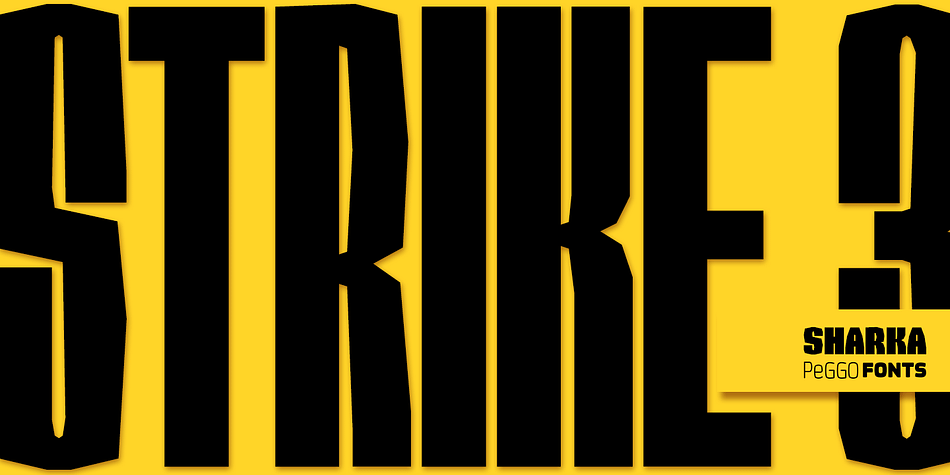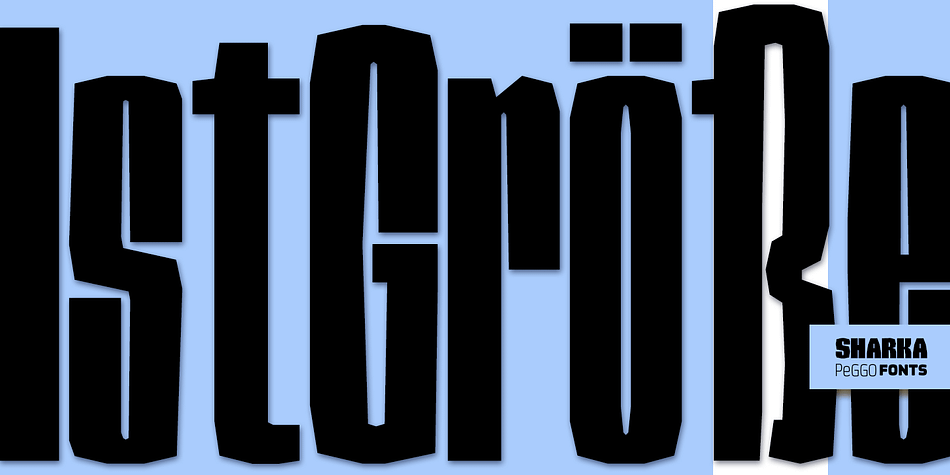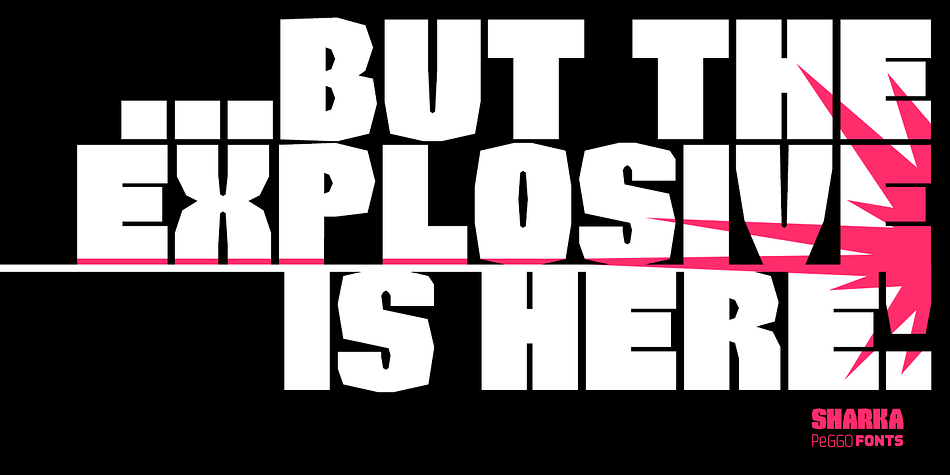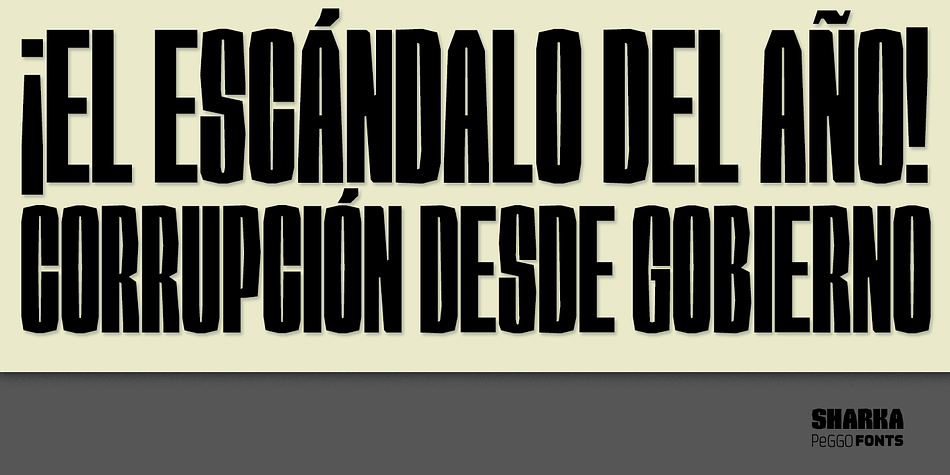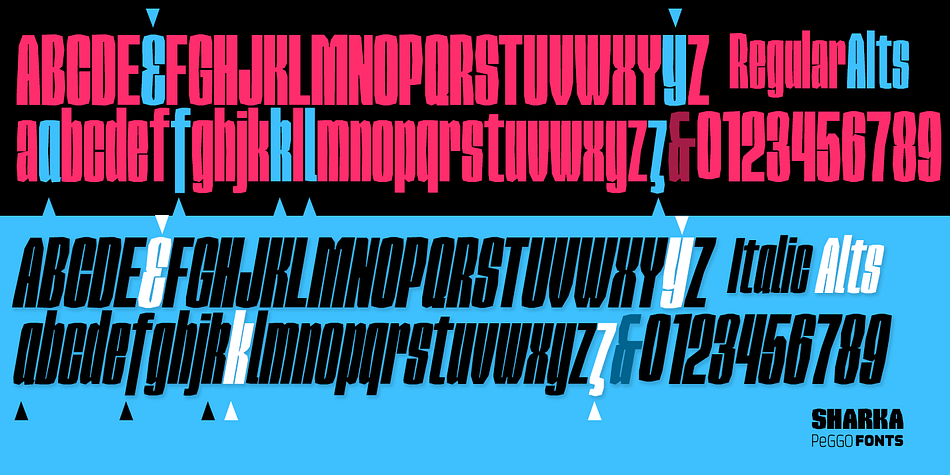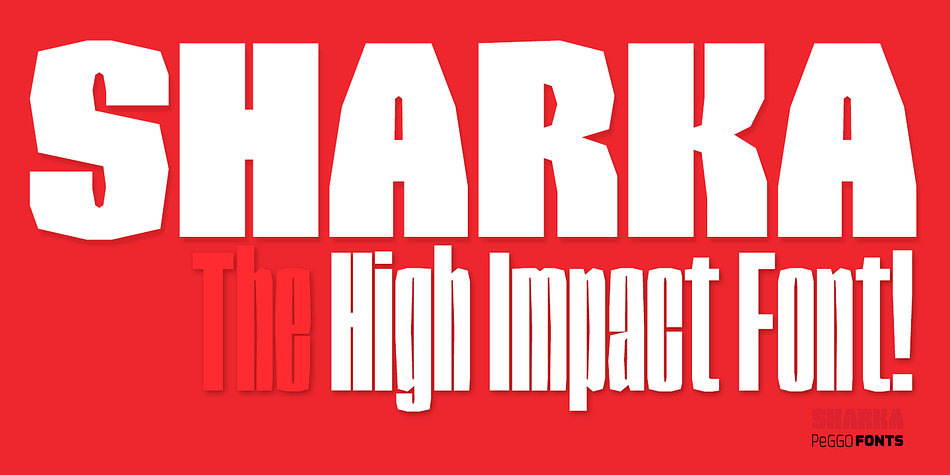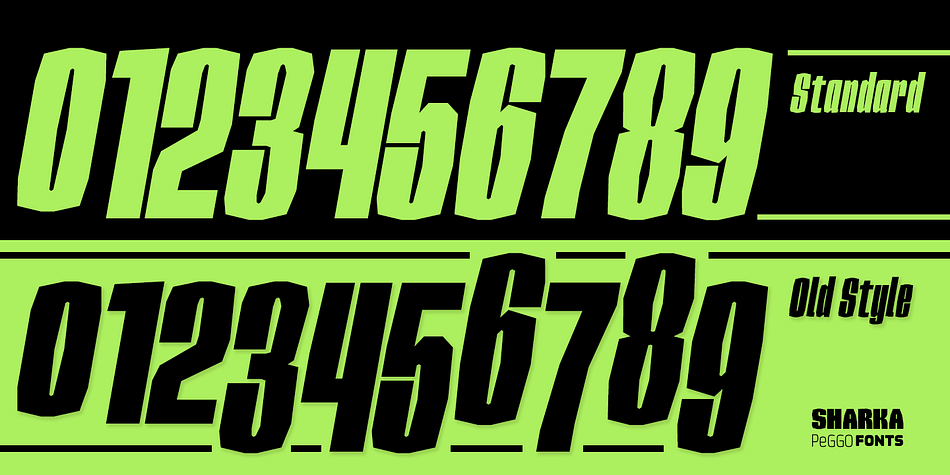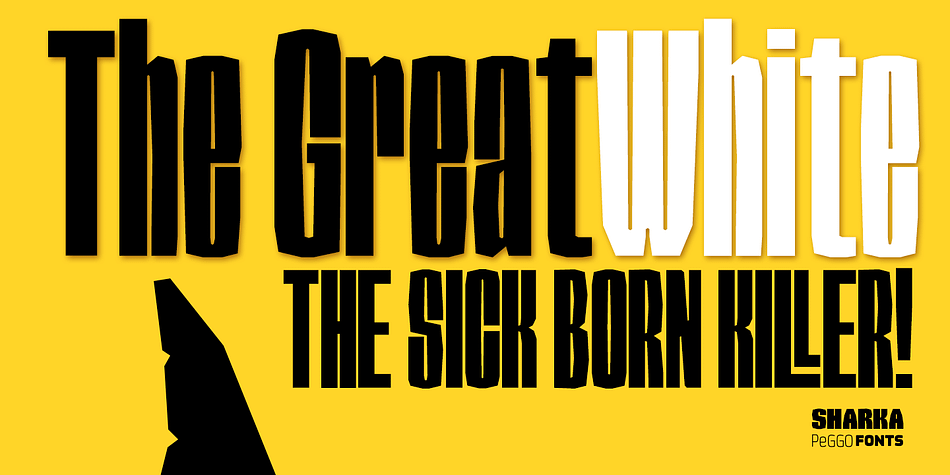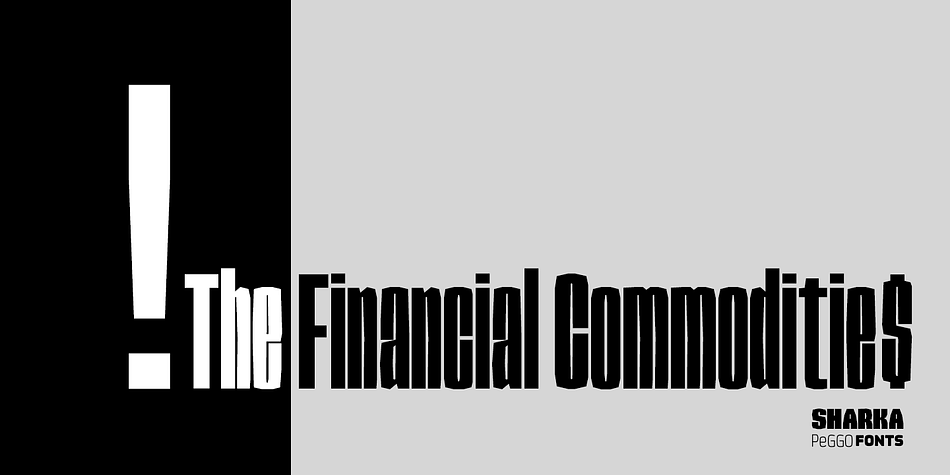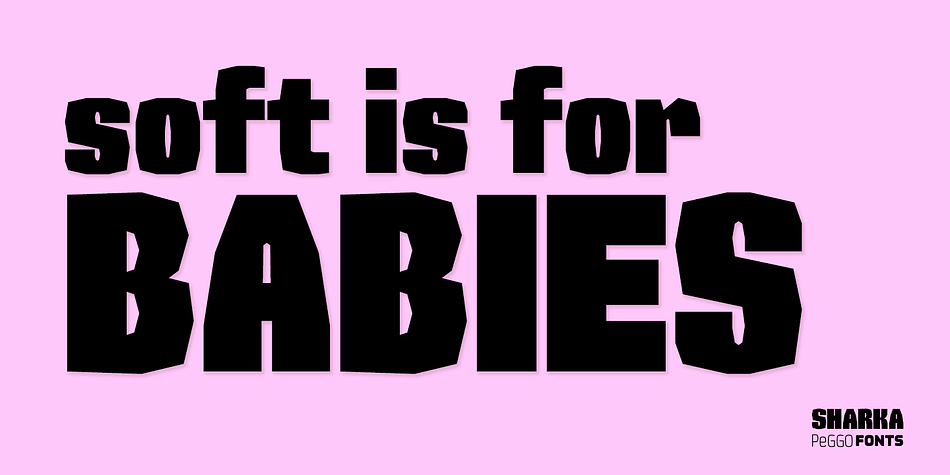
Designed by Pedro Gonzalez Jorquera, Sharka is a display sans font family. This typeface has twenty-one styles and was published by PeGGO Fonts.
“Sharka” is heavy sharp condensed system of 7 display typefaces widths, plus 7 italics and 7 alternative version on each family member, inspired on dangerous personality and aggressive reputation of the great white shark, it was thought to create the feel of high impact, high risk action on extreme situations, polemic public scandals, financial advertisement alert, the italic version specially creates the feel of velocity, powerful mechanical energy and related similar topics. Recommended to use in big headlines, magazine covers, advertisements, robust public visual calls, but also, if it applied with good taste and good typographical skills, could be a good choice not only for prints but also for web and digital media devices.